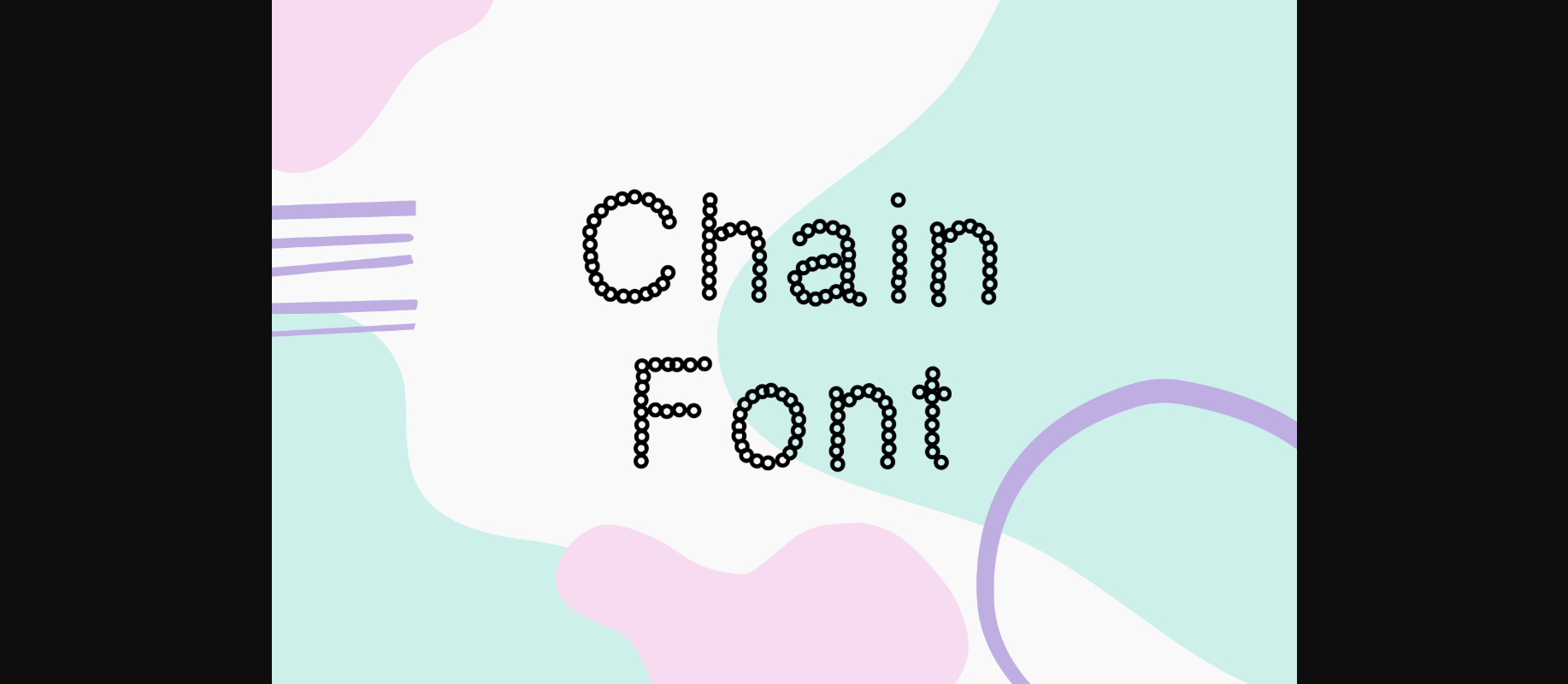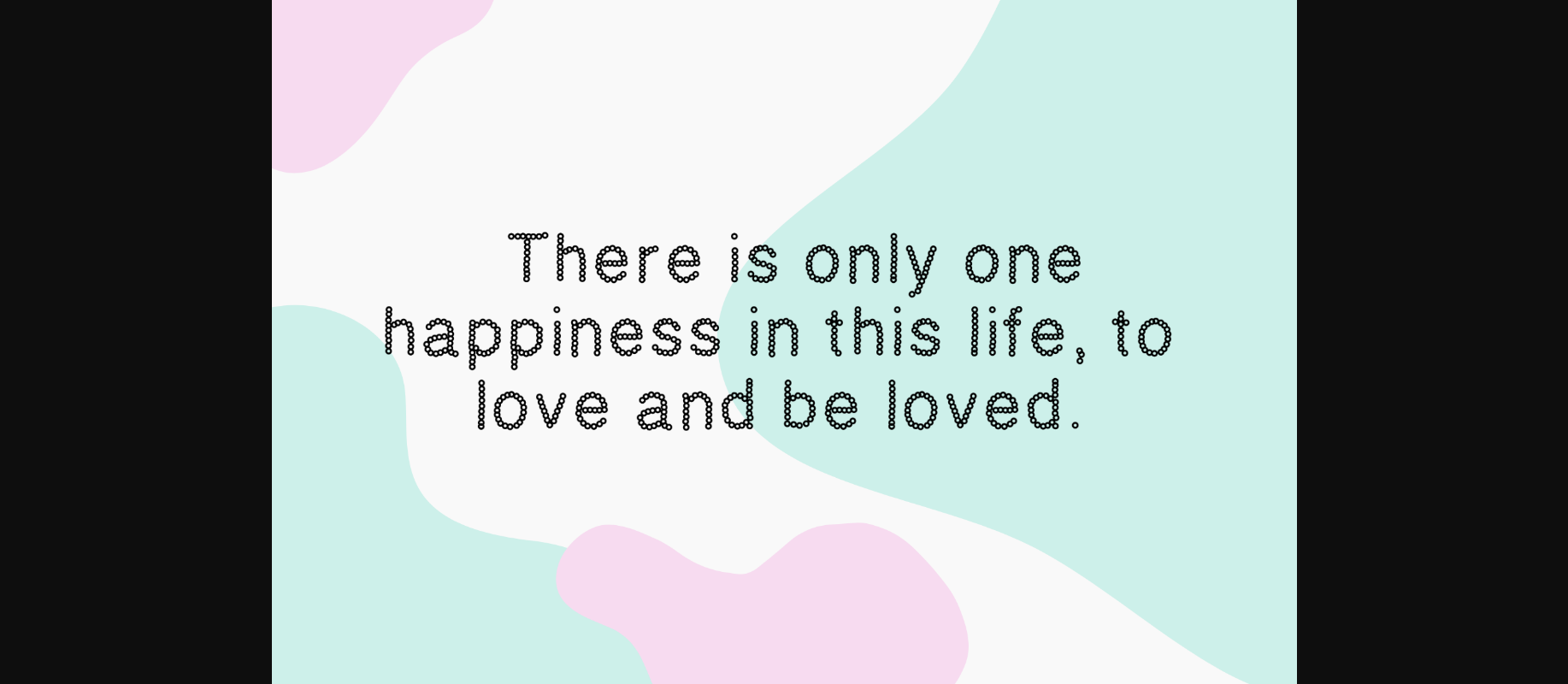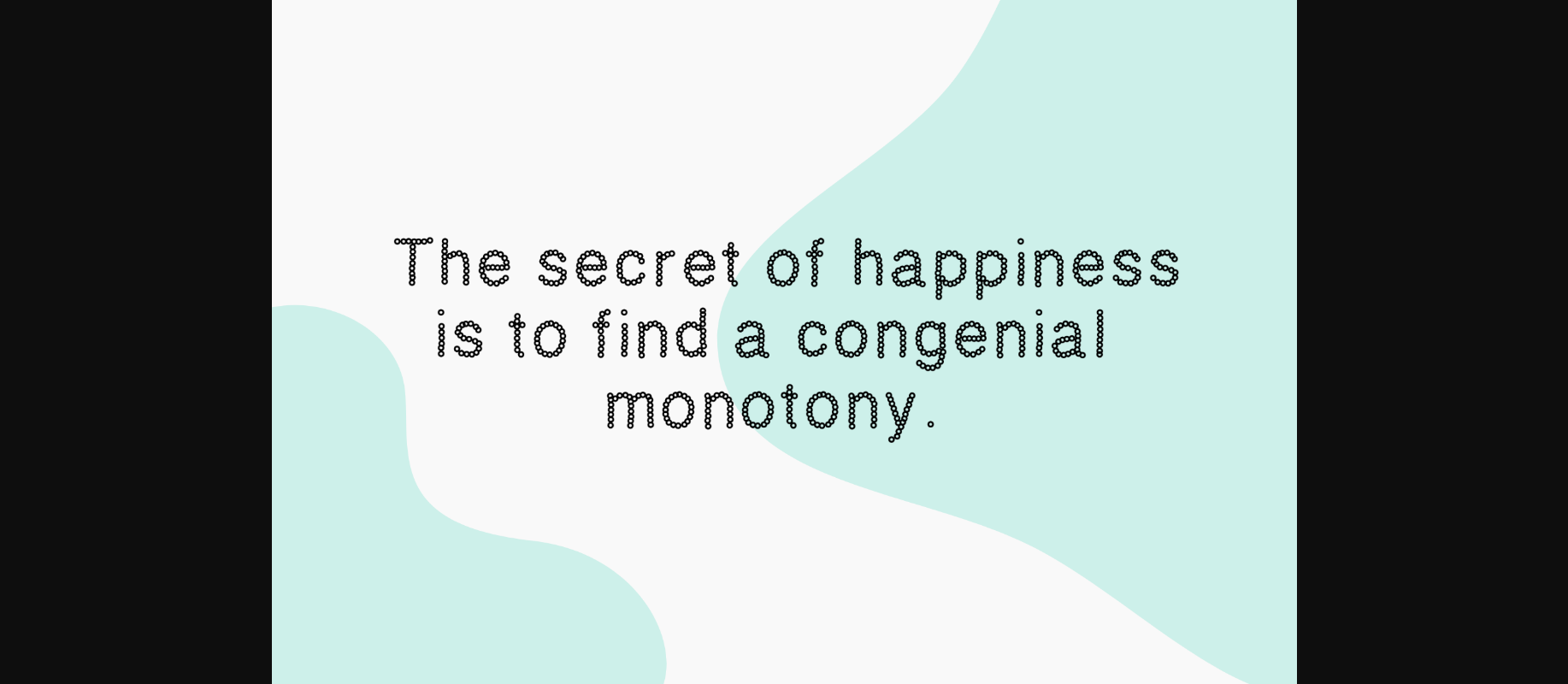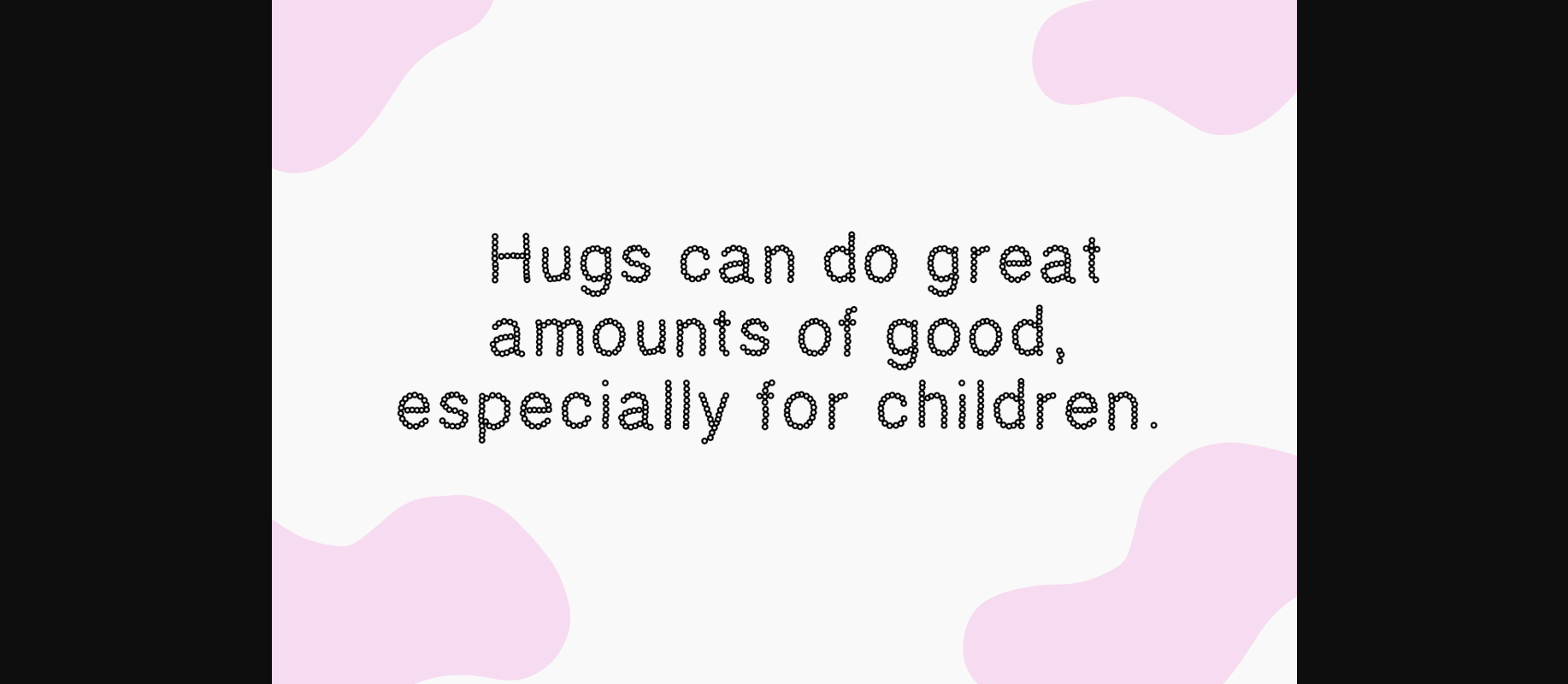
HomeDecorative FontsChain Font Decorative Fonts Chain Font FacebookXPinterestWhatsApp 1 of 6 ... Chain Font Poster 2... Chain Font Poster 3... Chain Font Poster 4... Chain Font Poster 5... Chain Font Poster 6... About Chain Font Chain is a quirky decorative font perfect for any design you wish to create. Add it now to your fonts library, and start creating projects that will capture everyone’s attention! DOWNLOAD NOW People also explored Agashi Font Bonjour De Jong Font Kingsroad Font Greysia Font Play Brick Font Xero Infection Font Blaster Font Espainol Font Revelstoke Font 360 0 TagsChainChain Font Previous articleTommy FontNext articleTriangle Font LEAVE A REPLY Cancel reply Comment: Please enter your comment! Name:* Please enter your name here Email:* You have entered an incorrect email address! Please enter your email address here Website: Save my name, email, and website in this browser for the next time I comment. Personal Use Free BD Geminis Personal Use Free Read more about this font Axaxax Bold Personal Use Free Read more about this font Evelyne Personal Use Free Read more about this font Cuttie Personal Use Free Read more about this font BLOG Fonts That Capture the Spirit of New York City New York City is more than just a place—it’s an experience, a rhythm, a visual language... How to Install and Use Fonts on Windows, macOS, and Web Projects Modern Sans-Serif Fonts That Brands Love in 2025 Exploring Font Trends